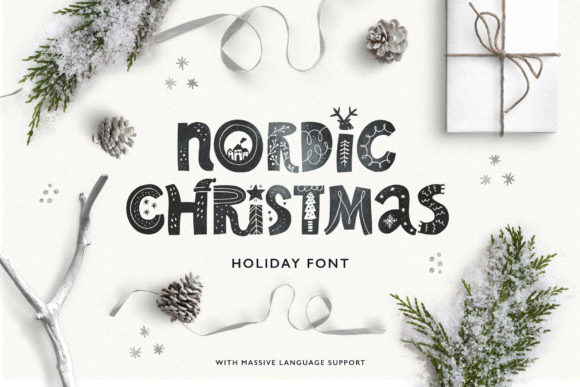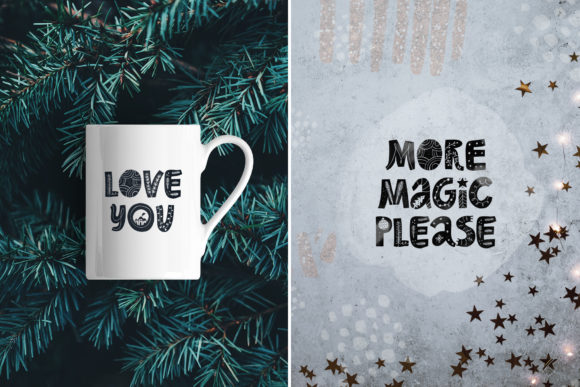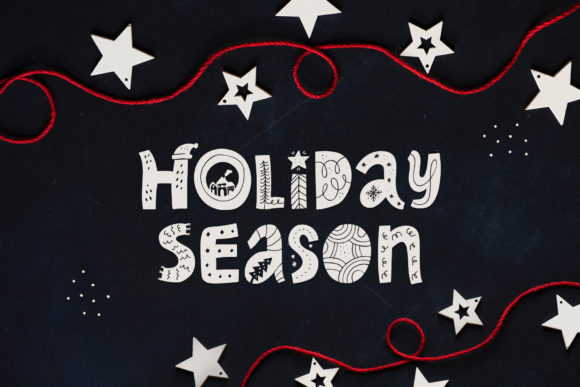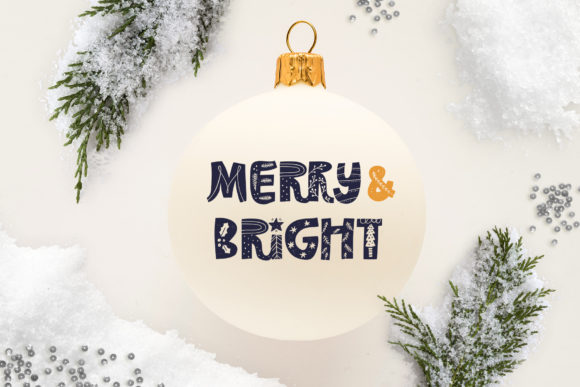
Nordic Christmas Font
About the Nordic Christmas Font
Meet Nordic Christmas Font, a stunning font that brings a touch of elegance and professionalism to any design. Nordic Christmas is a stylish decorative font with a bold look and holiday feel. It is inspired by nature, winter, and scandinavian motives, and it will be perfect for posters and greeting cards.
Its strong, slightly whimsical forms make it ideal for headlines, short impactful text on packaging, and festive branding projects. Think winter-themed promotions, craft businesses, or holiday-focused events. Avoid using it for body text or lengthy paragraphs; its decorative nature hinders readability at smaller sizes.
Nordic Christmas pairs well with clean sans-serif fonts like Helvetica Neue for a balanced contrast, or with a more playful script font for a layered, festive feel. A simple serif like Garamond could add a touch of sophistication and counteract its boldness.
The font exudes a bold, festive, yet approachable personality. It’s best suited for brands aiming for a friendly, celebratory, and slightly quirky image, rather than something sleek or minimalist.
Nordic Christmas Font Usage Examples
Nordic Christmas Font Example